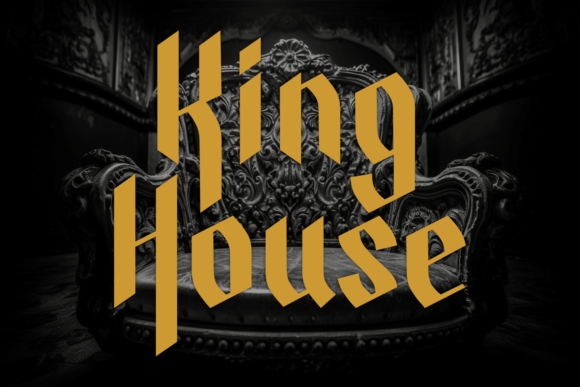
Introducing King House Font, the ultimate choice for those seeking a touch of sophistication and elegance in their typography designs. Crafted by the talented team at Creative Fabrica Fonts, this blackletter gem is bound to captivate your senses and elevate your design projects to new heights!
Blackletter fonts have always exuded a timeless charm, and King House Font is no exception. With its stunning strokes and intricate details, this typeface effortlessly adds a touch of class to any design it graces. Whether you're working on a logo, advertisement, poster, book cover, header, or title, King House Font will make your creations shine like never before.
When it comes to making a lasting impression, King House Font reigns supreme. Its regal curves and precise lines create a visual masterpiece that demands attention. Let your typography speak volumes and leave a lasting impact on your audience with this exceptional font.
Unlock a world of creative possibilities with King House Font. Its versatility allows it to adapt seamlessly to various design styles, whether you're aiming for a vintage, medieval, or contemporary look. Embrace the power of this font to effortlessly convey a sense of timelessness and elegance in your projects.
With King House Font, your words become art. Its alluring presence and captivating aura make every letter a work of art in itself. Allow your message to resonate with emotion and depth, as this font adds a touch of soul to your words.
But it doesn't stop there. King House Font is more than just a pretty face. Behind its mesmerizing appearance lies a font packed with functionality. Its legibility ensures that your message is conveyed effortlessly and with utmost clarity, leaving no room for confusion.
Embrace the power of King House Font and let it guide you towards design greatness. Stand out from the crowd, captivate your audience, and leave a lasting impression with this remarkable blackletter font.
Don't settle for ordinary when you can have extraordinary. Experience the magic of King House Font and transform your designs into unforgettable masterpieces. Elevate your creativity, unleash your imagination, and redefine the boundaries of typography with this exceptional font.